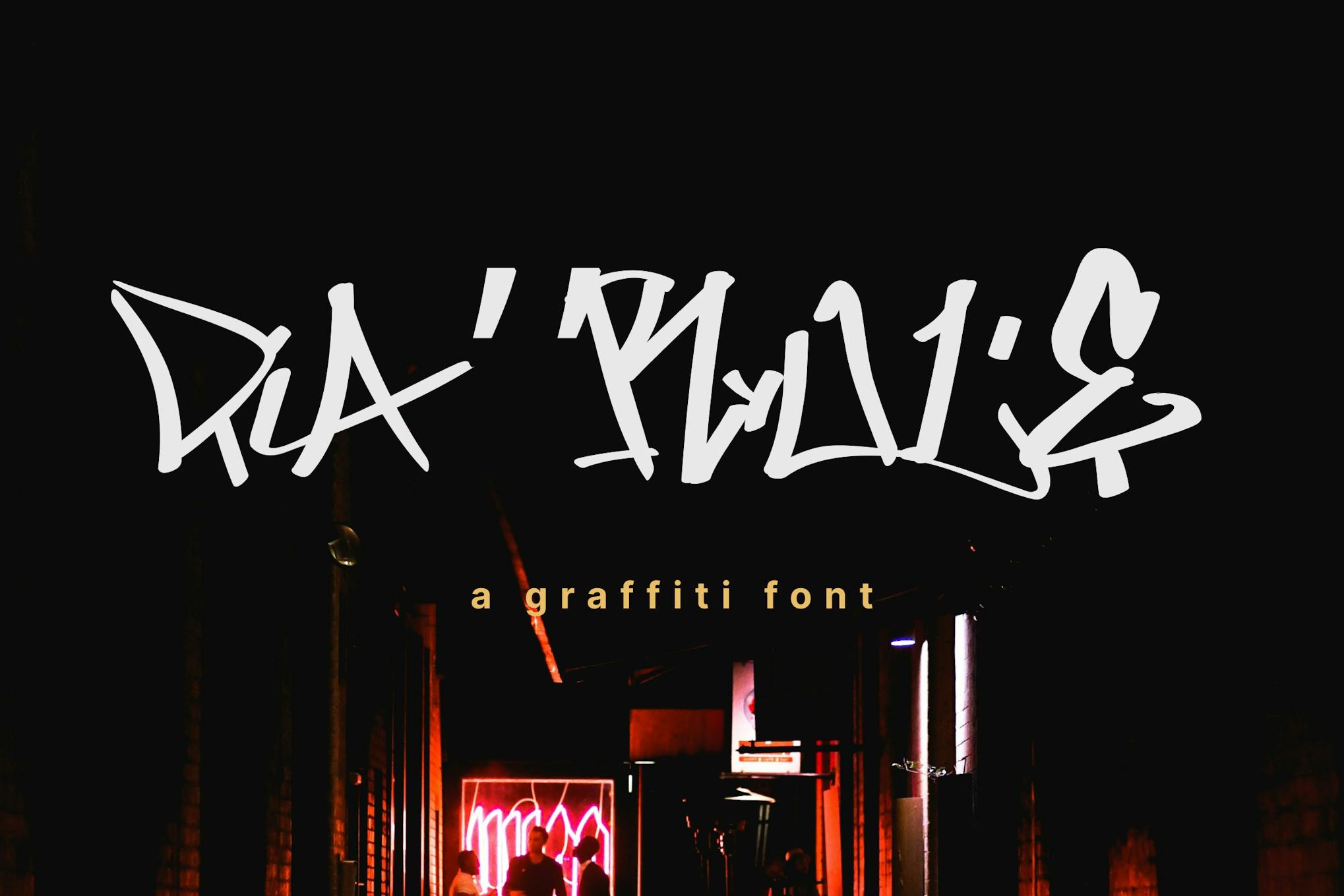
Da'Role Graffiti Font
Da'Role Graffiti Font explodes across urban streetwear designs, hip-hop album covers, street art exhibitions, underground music venues, urban fashion campaigns, skate park signage, youth culture branding, street festival posters, breakdancing event graphics, urban lifestyle magazines, graffiti art galleries, and contemporary urban marketing where authentic street culture and rebellious artistic expression create powerful cultural connections.
This electrifying typeface generates excitement through its raw embodiment of authentic street culture and underground artistic rebellion that creates typography with genuine urban credibility and street-level authenticity. Da'Role Graffiti Font captures the essence of underground graffiti artistry with its bold, expressive letterforms that reflect the spontaneous energy and rebellious spirit of street art culture. The font's dynamic design approach incorporates spray paint aesthetics, drip effects, and organic irregularities that mirror authentic graffiti techniques and urban artistic expression. Its distinctive character embodies the creativity, independence, and cultural resistance that define genuine street art movements and underground artistic communities.
The Da'Role Graffiti Font family encompasses multiple street-inspired variations including Regular, Bold, Light, Drip, and Stencil versions, each maintaining the font's characteristic street authenticity while offering different levels of urban impact. The collection features spray paint textures, graffiti-style effects, tagging elements, and street art decorations that enhance its underground credibility. Additional elements include paint splatters, stencil cutouts, urban symbols, and street culture ornaments that reinforce the font's connection to authentic graffiti artistry and hip-hop culture.
Urban designers and street culture brands consistently choose Da'Role Graffiti Font Free Download for projects requiring typography that communicates authentic street credibility and underground cultural connection. This remarkable typeface excels in applications where establishing urban authenticity and connecting with youth culture are essential for brand relevance. The font's graffiti-inspired qualities make it particularly effective for streetwear brands, music labels, and cultural organizations targeting audiences who value authentic urban expression and underground artistic movements.
Whether you're designing streetwear collections, creating urban music branding, developing youth culture campaigns, or building authentic street art projects, Da'Role Graffiti Font delivers unmatched urban authenticity. Its ability to convey rebellion, creativity, and street culture credibility makes it invaluable for brands seeking to connect with urban communities through genuine cultural expression. The font's street presence ensures your designs will communicate the authentic energy and artistic rebellion that define exceptional urban culture and street art communications.